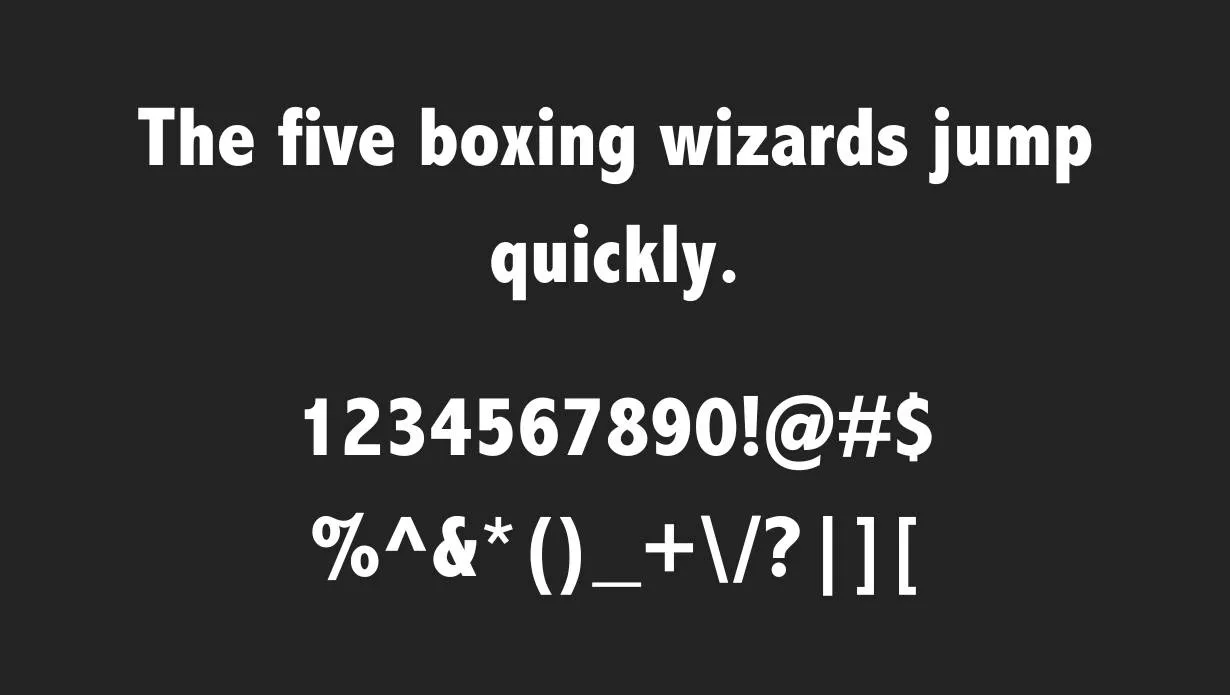
The Abadi Condensed Font is a slender and compact typeface, designed specifically to save space while maintaining readability. It’s often seen in designs where real estate is limited, such as small sections of documents or websites.
| Designer | Ong Chong Wah |
This font’s streamlined and trim appearance allows for the efficient use of space without compromising legibility. Achieve the desired audience response by pairing the droid sans font with this font family to maximize the effectiveness of your communication.